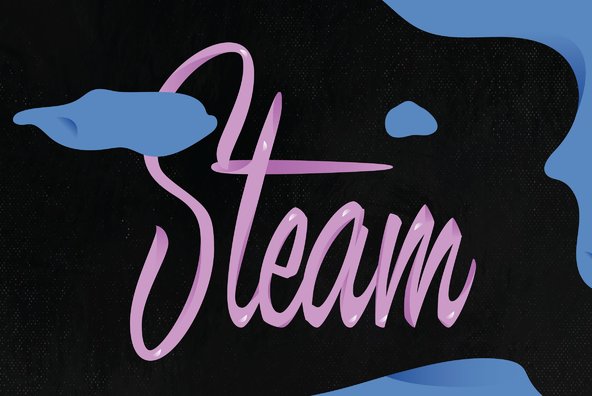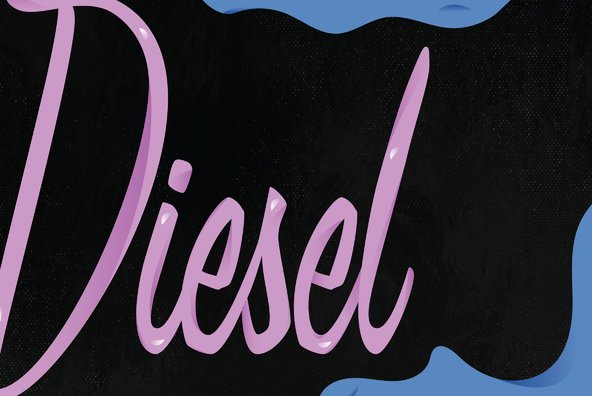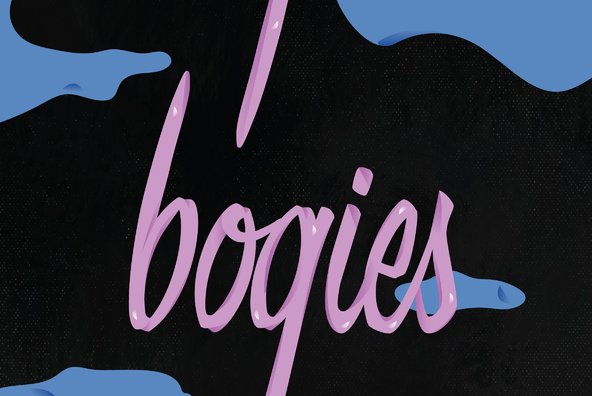
Leisure Script Font
Leisure Script
Take it easy with Leisure Script! This casual fine brush script is to the eyes what Dean Martin is to ears!
Stuart Sandler launched the Font Diner foundry in 1996 and has become a major resource for retro design software products. He has created more than 500 original typefaces for the graphic design industry and established a reputation as the premier retro display typography designer inspired by 1950s popular cult...